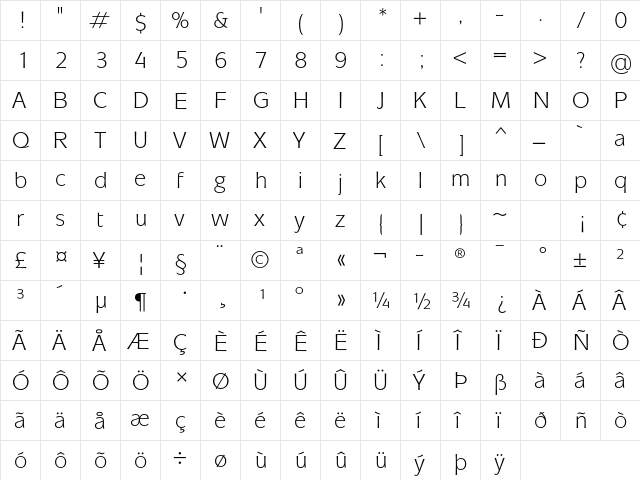
Mixage ITC Std Book
| Designer | Aldo Novarese |
Design Context for Mixage ITC Std Typeface
Mixage ITC Std takes a measured approach to typography — its balanced proportions and neutral character make it a reliable workhorse for both digital and print work.